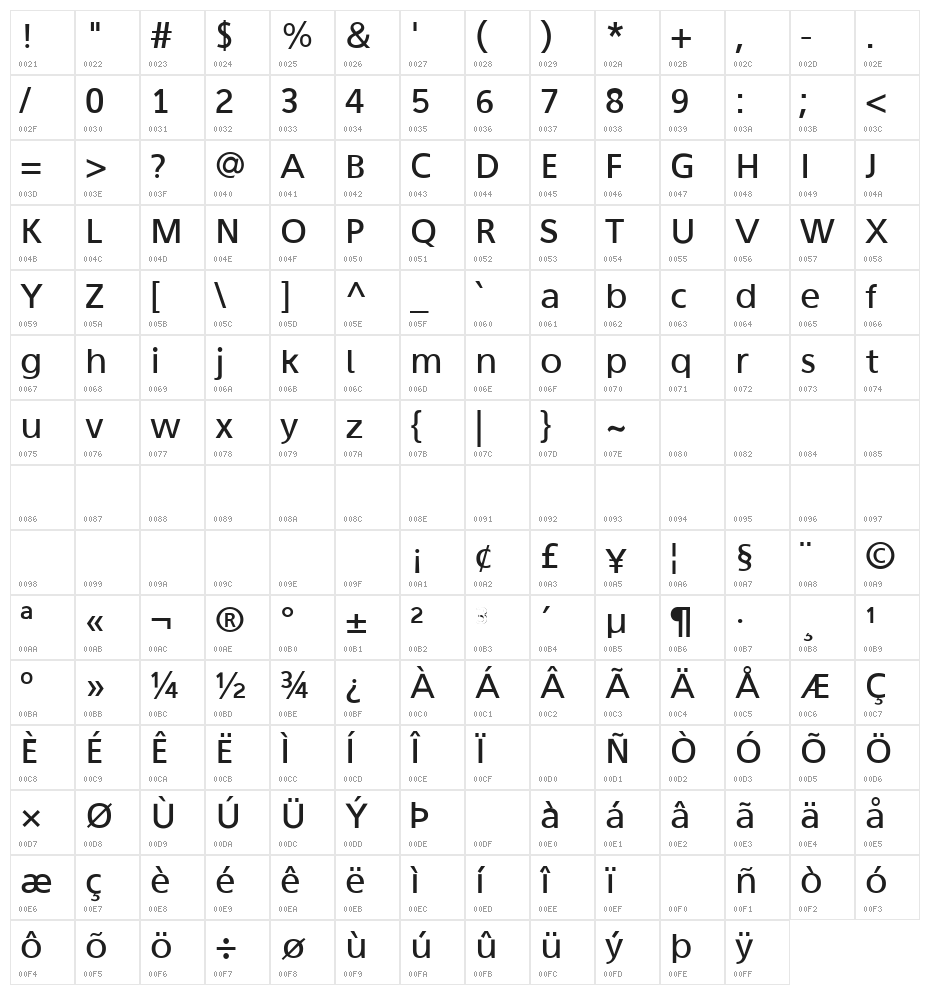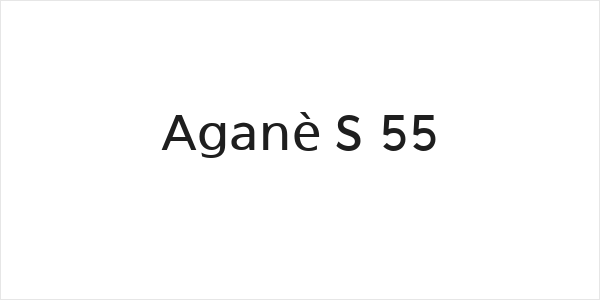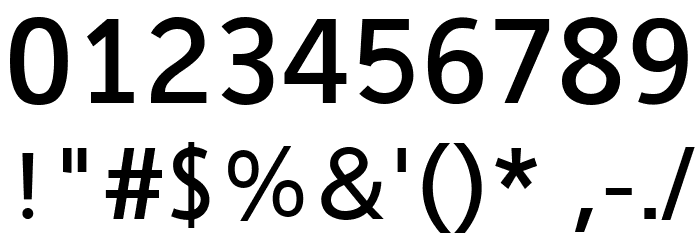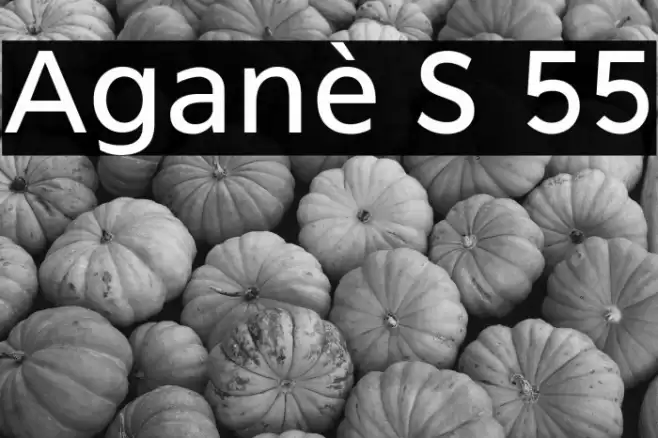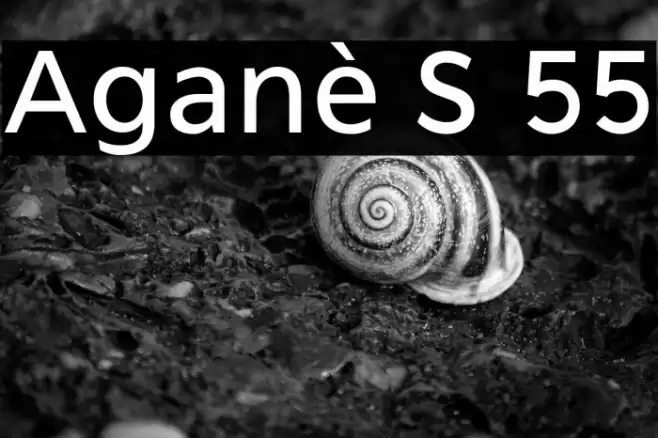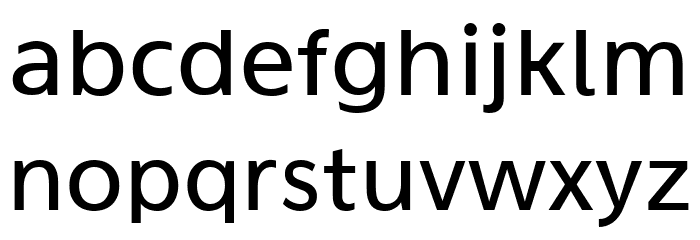
Aganè S 55 Font
Aganè S 55 Description
This font features a clean and modern sans-serif design with uniform stroke widths, offering a sleek and professional appearance. The characters are well-balanced, with a slightly rounded finish that adds a touch of softness to the overall look. The uppercase letters are bold and authoritative, while the lowercase letters maintain a consistent height and spacing, ensuring readability. The numerals are clear and straightforward, making them ideal for data presentation. Special characters are designed with simplicity in mind, enhancing the font's versatility across various applications.
| Use Case | Headlines, Body text, Logos |
| Proposed Projects | Ideal for corporate branding, website headers, digital interfaces, and print media. |